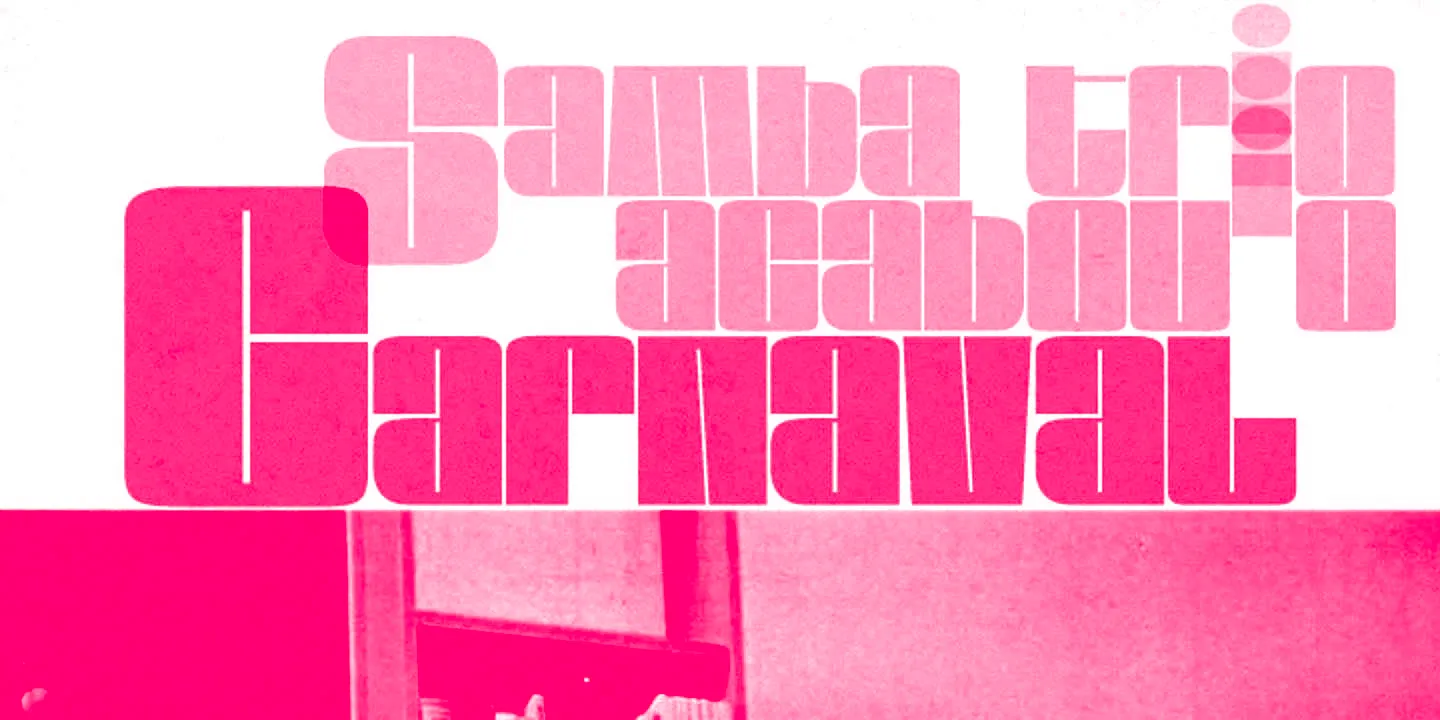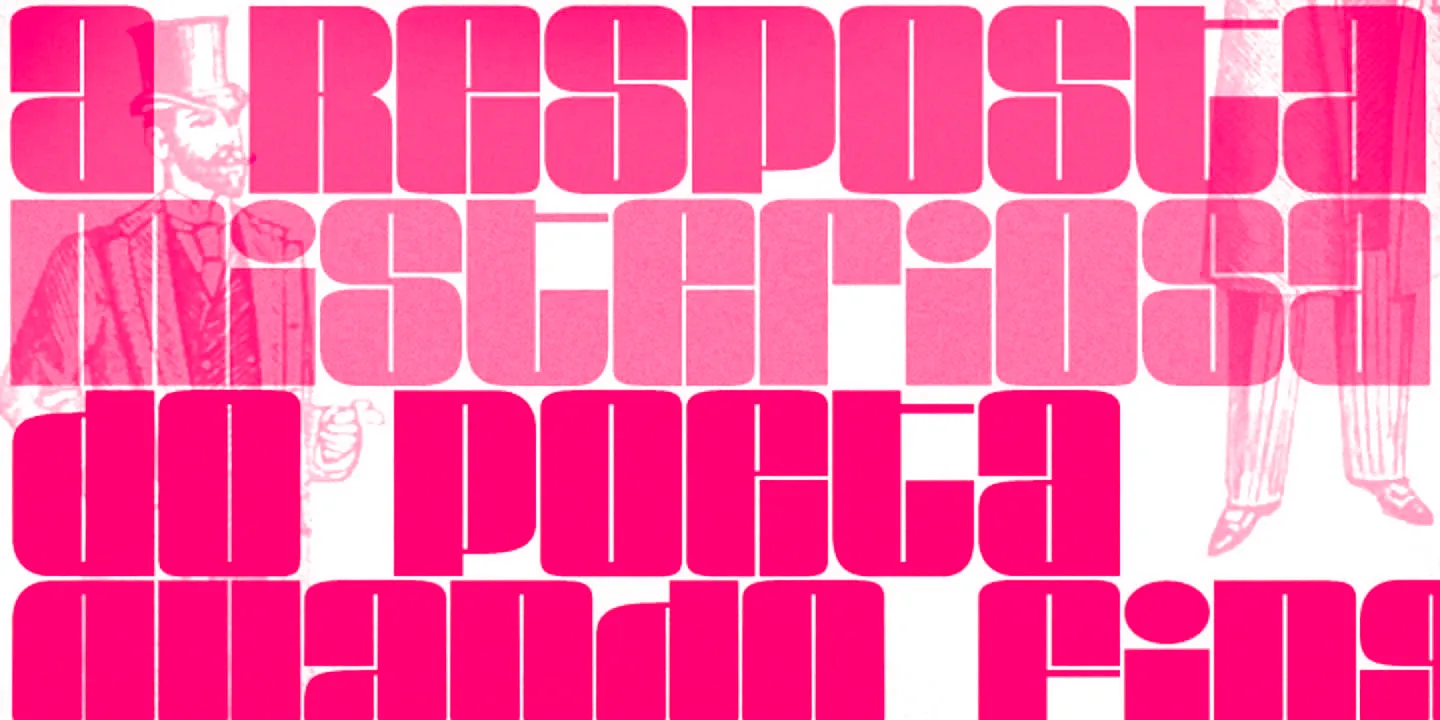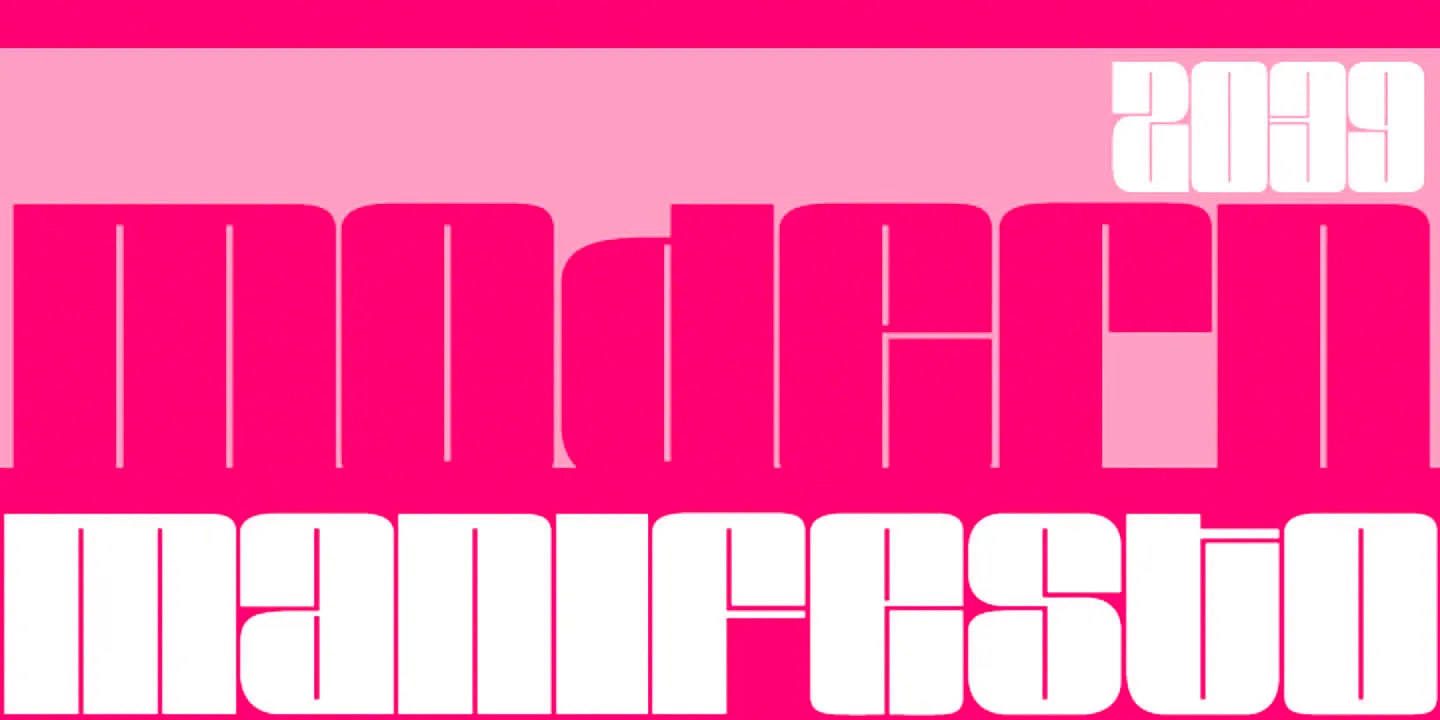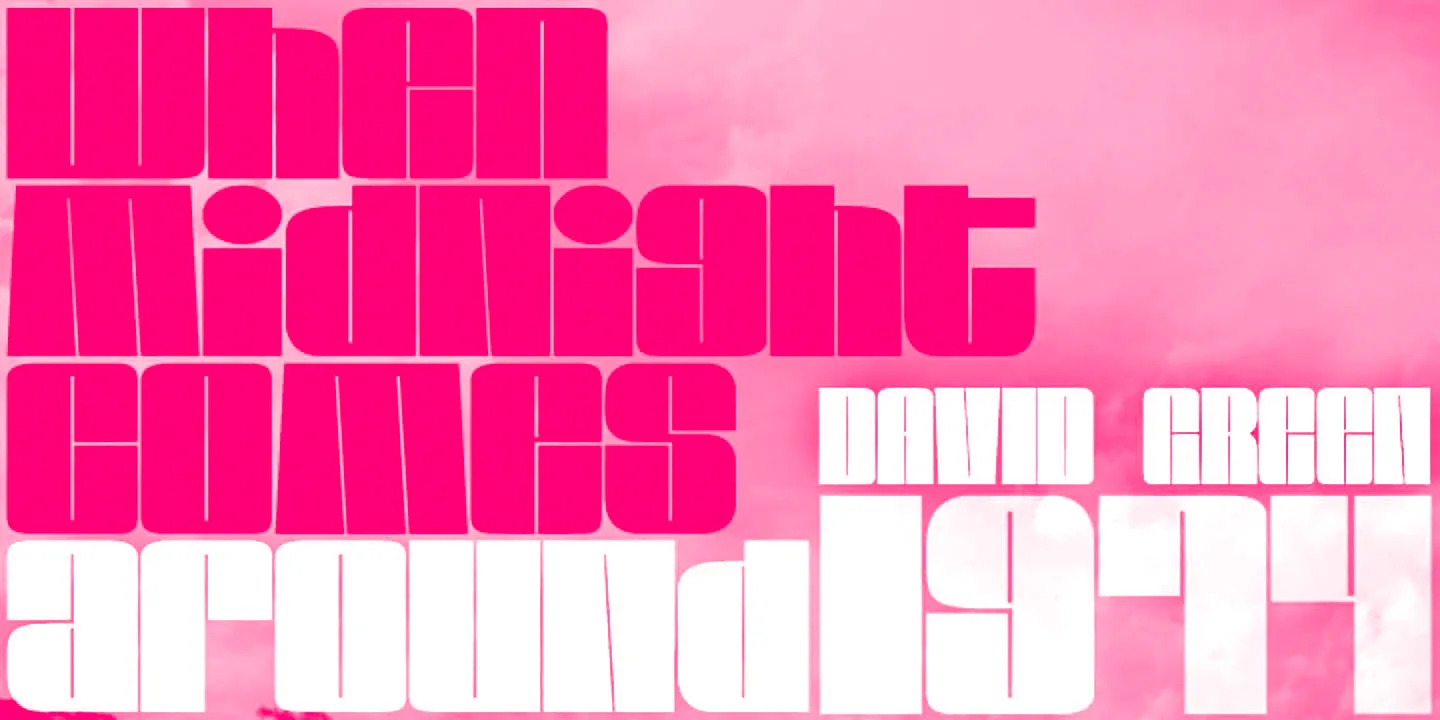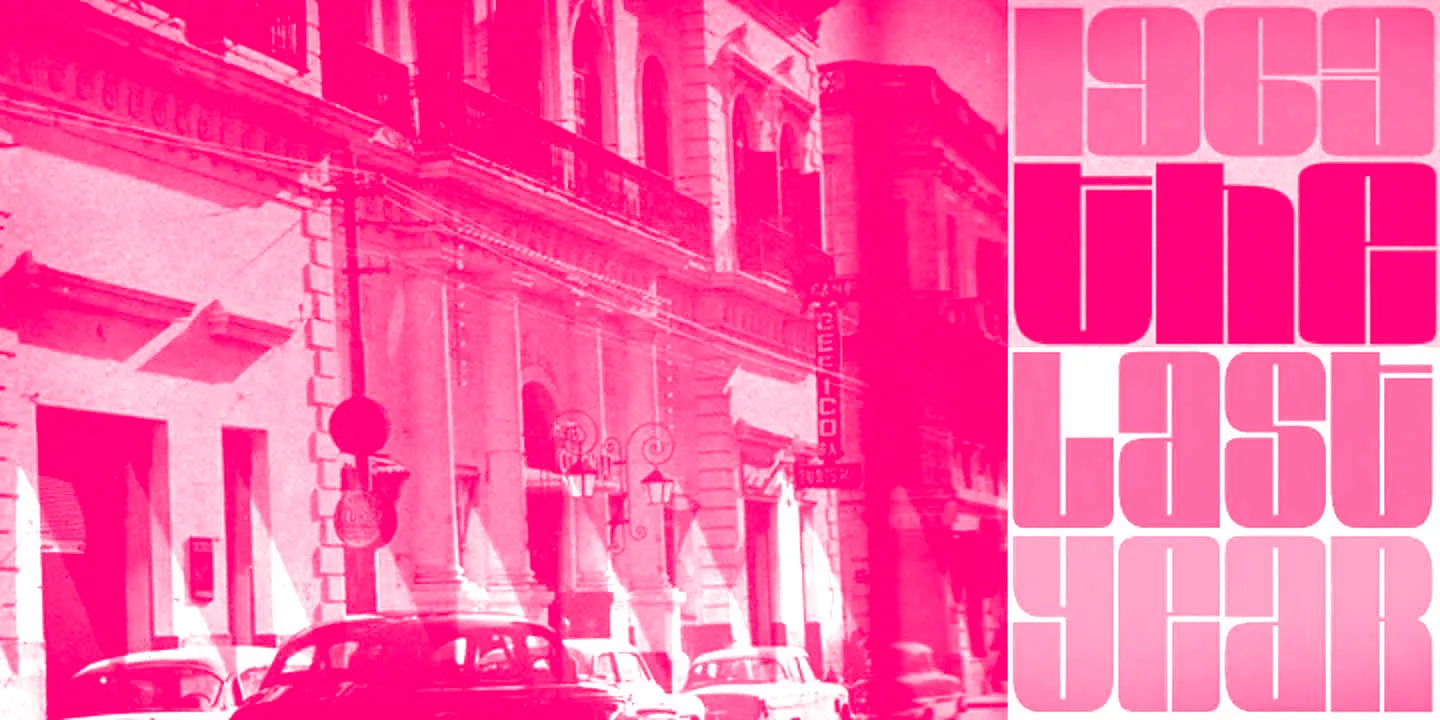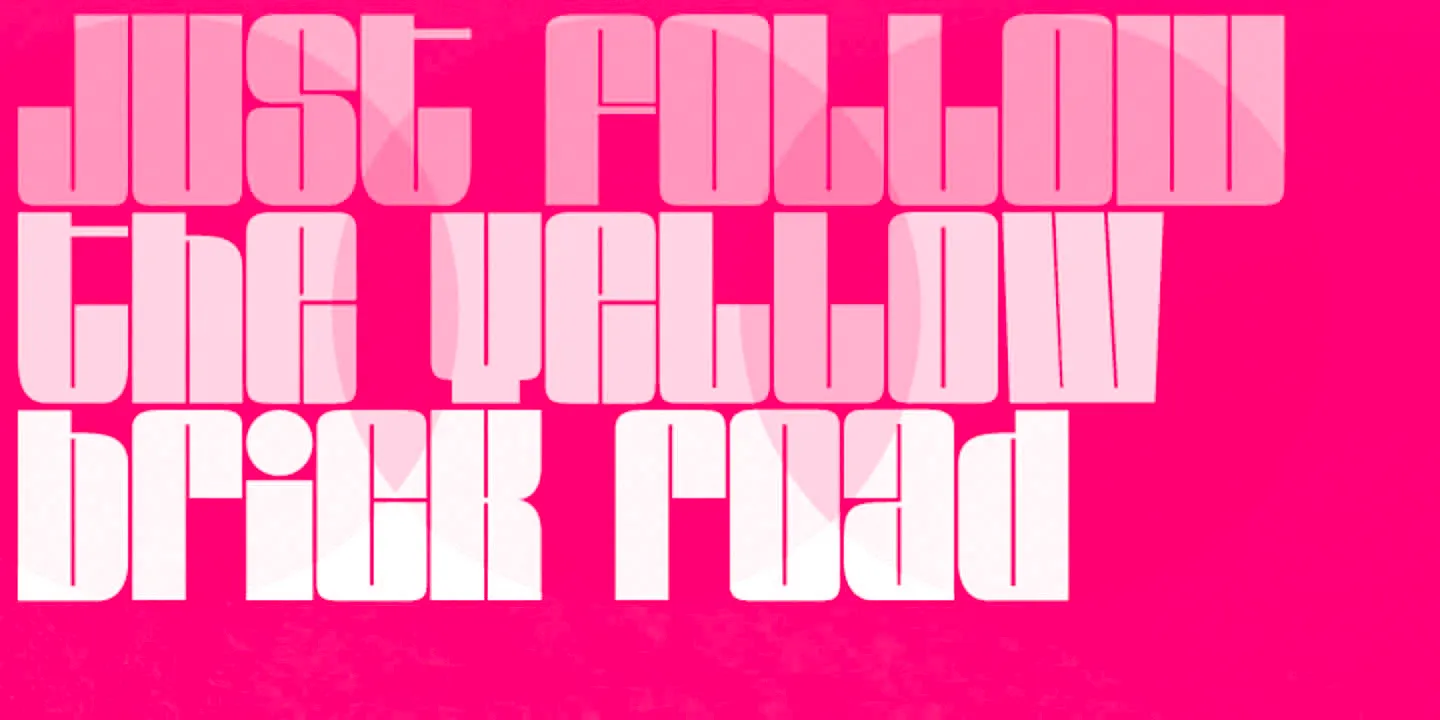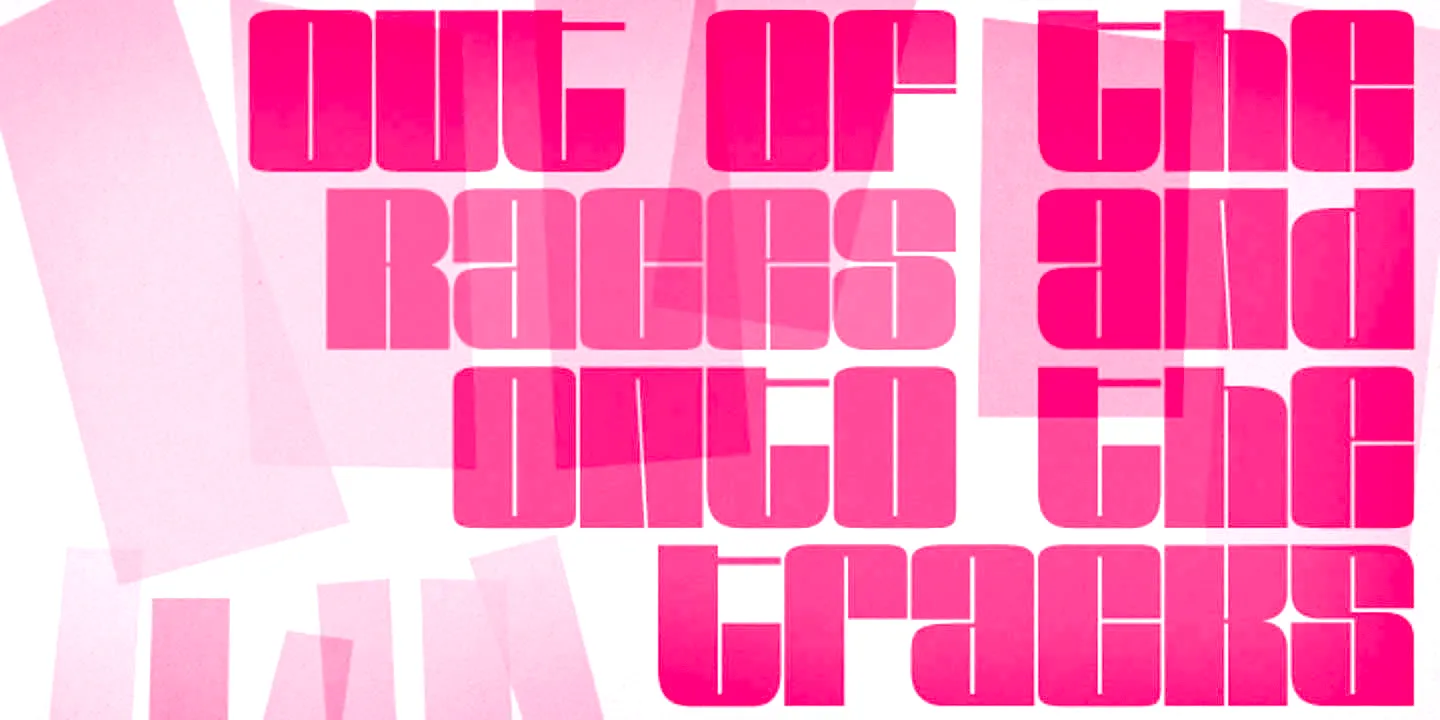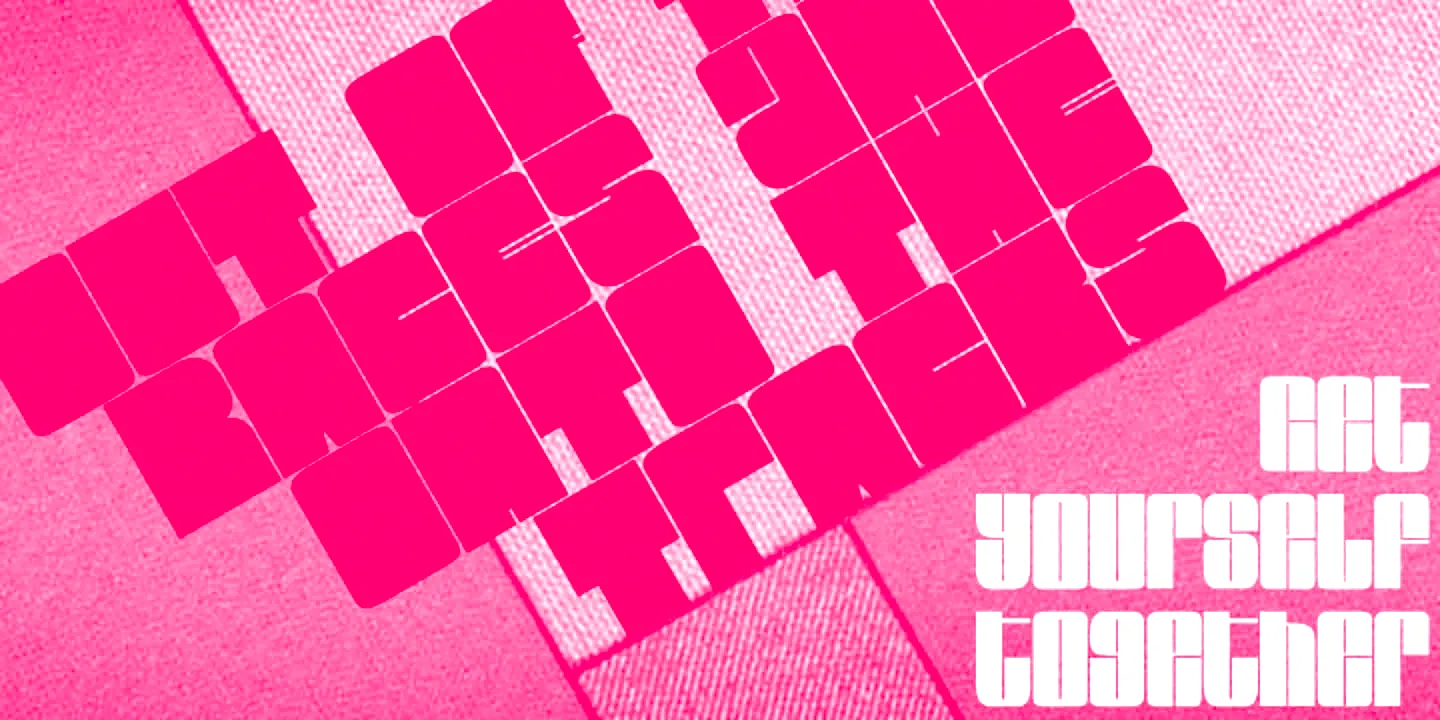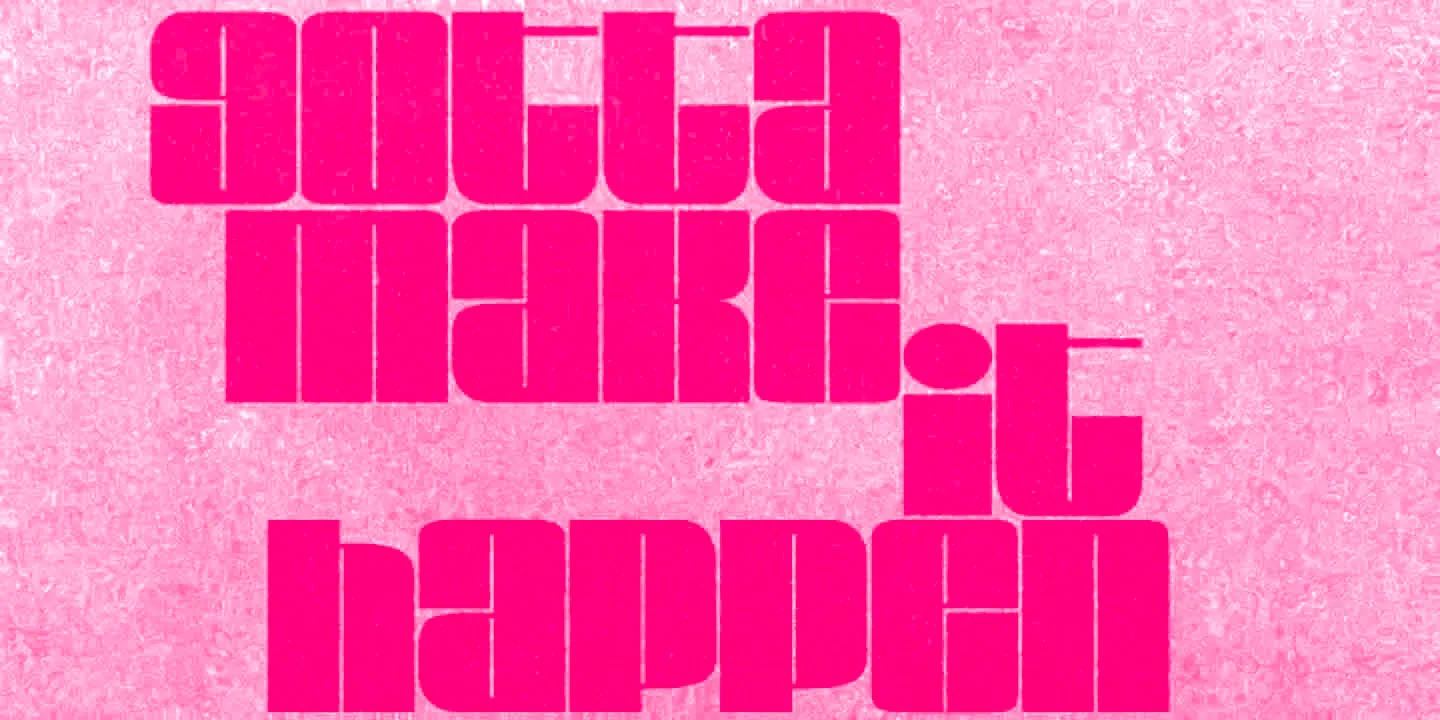
Loudine
Loudine is a bold, ultra-compact display typeface with a distinctly industrial flair. Its heavy rectangular forms and high contrast are designed to make a maximum impact. To instantly get into a new mood, use the filled counters and slightly different letter shapes. With a bold, blocky presence, assertive rhythm, and no-nonsense silhouette, it works well for editorial titles, rally graphics, game packaging, and large-scale signage. Be sure to play it loud!
- Common Ligatures
- Stylistic Alternates
- Stylistic Sets